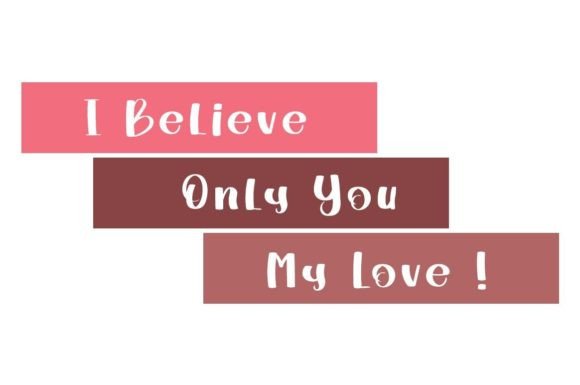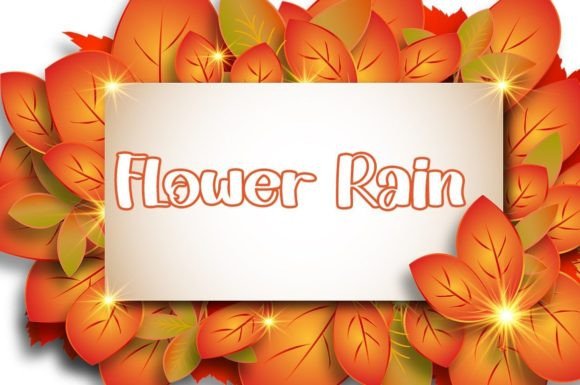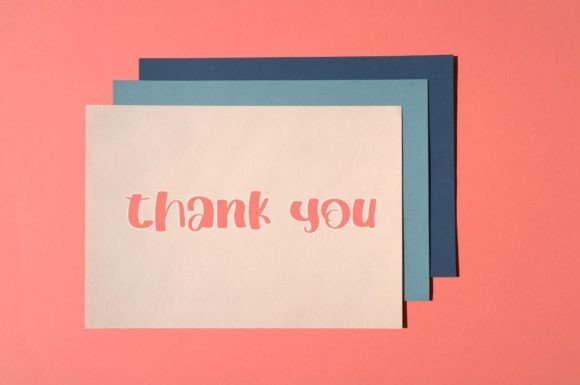
Introduction to Jamez Love Font
Have you ever been working on a creative project, pouring your heart and soul into it, only to realize that the font you’re using is holding it back? I know I have. That’s why I’m so excited to share with you one of my favorite design resources – the Jamez Love Font. This beautiful handwritten font is a game-changer for any project, whether you’re designing a wedding invitation, a logo for your business, or just a simple social media post.
The Jamez Love Font is a high-quality design resource that will give your work a touch of elegance and sophistication. With its fresh, clean, and transparent background, it’s perfect for designers who want to add a personal touch to their projects without sacrificing professionalism.
Key Features of Jamez Love Font
- High-quality design resource with a unique, hand-drawn style perfect for creative projects.
- Includes 2 font styles with a range of characters, including uppercase and lowercase letters, numbers, and punctuation.
- Perfect for use in graphic design, digital art, and other creative projects where a unique, handwritten font is desired.
Honest Review: Jamez Love Font
I recently stumbled upon the Jamez Love Font, and I must say it’s been a game-changer for my design projects. As a designer, I’m always on the lookout for high-quality fonts that can elevate my creative work. The Jamez Love Font does just that.
Here are some things that work well:
- ✨ High-quality design: The Jamez Love Font is crisp, clean, and well-designed.
- ✨ Versatile: It can be used for a variety of creative projects, from branding to publishing.
However, I do have a few concerns:
- ⚠️ Limited character set: The Jamez Love Font only comes with a limited character set, which may not be suitable for all design projects.
- ⚠️ No transparent background: While the font is high-quality, it doesn’t come with a transparent background, which can limit its use in certain design applications.
Overall, I’m impressed with the Jamez Love Font. It’s a great addition to any designer’s toolkit, and I highly recommend it for designers working on creative projects that require a high-quality, stylish font. Just be aware of its limitations, and you’ll be all set to create amazing designs with the Jamez Love Font.
How to Use Jamez Love Font
The Jamez Love Font is a high-quality, free download design resource perfect for creative projects. With its unique and elegant style, it can add a touch of sophistication to any design.
Tips for Getting the Most Out of Jamez Love Font
To get the most out of the Jamez Love Font, use it on a transparent background to create a sense of depth and dimension. You can also pair it with other fonts to create a unique and eye-catching design.
The Jamez Love Font is perfect for a variety of creative projects, including:
- Menus and pricing lists
- Graphic designs and illustrations
Alternatives to Jamez Love Font
The Great Vibes Font is a beautiful, elegant script font ideal for creative projects that require a touch of sophistication. Its high quality and versatility make it suitable for various design applications, including wedding invitations, branding materials, and editorial content. When to use: Formal events, luxury brands, and high-end design projects.
Comparison to Jamez Love Font: Great Vibes Font has a more refined and polished appearance, making it suitable for formal and professional designs. Unlike Jamez Love Font, it doesn’t have a distressed or vintage feel, but rather a clean and modern look.